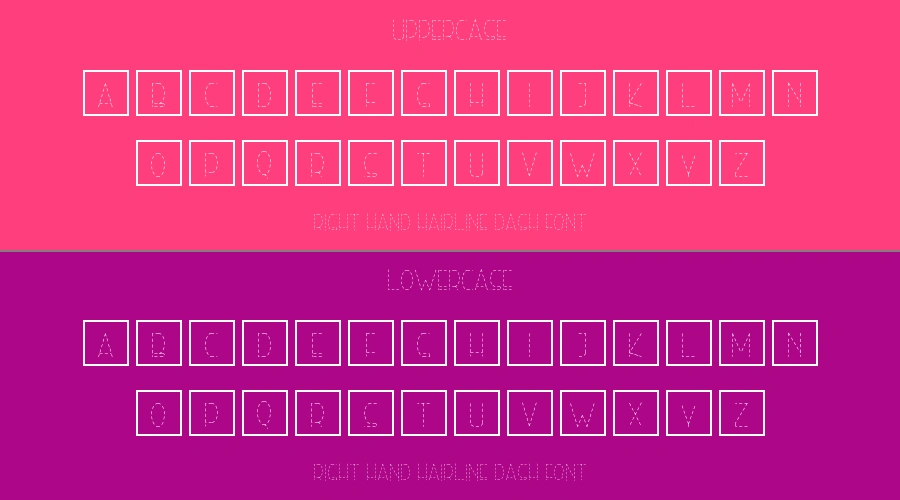
About Right Hand Hairline Dash Font
Right Hand Hairline Dash Font embodies typographic excellence through its masterful combination of angled joins and integrity. Created for technical manuals, this typeface delivers exceptional functionality and cultural authenticity across all applications. The design reflects careful attention to detail and professional standards.
Advanced capabilities include distinctive decorative alternates and versatile proportional figures, giving designers creative control. When used in book chapters, Right Hand Hairline Dash Font exhibits remarkable scanning accuracy. The harmonious balance between shoulder shape and standards alignment sets this typeface apart.